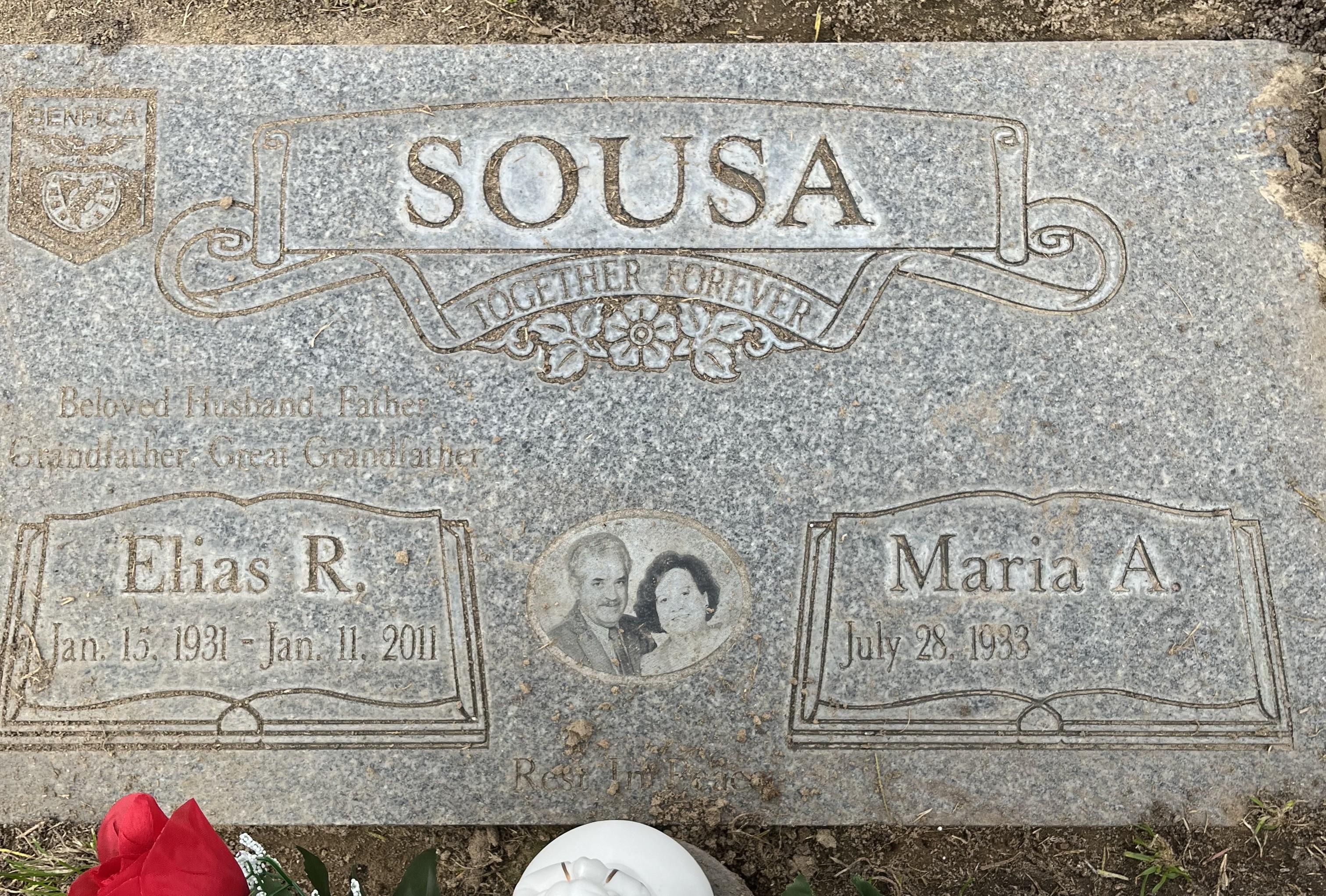
Hoping to get a match for the font on Name and Dates.
Hello, the font used for the name and dates is a version of Baskerville. It appears as if it has been manually condensed quite a bit. It is likely the Gerber version, “Baskerville Acct AK Rev B”. Other similar versions are Baskerville Handcut or ITC New Baskerville.